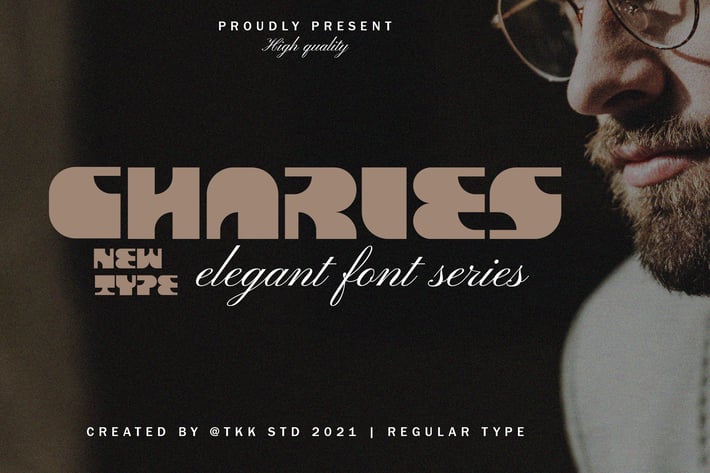
Retro Font - Charles
CHARLES - A Bold, Editorial-Inspired Typeface with Sculpted Proportions
CHARLES is a chunky, urban-inspired display font with bold edges, heavy contrast, and a powerful stance. Designed for modern fashion brands, music covers, and street posters, its structure leans on high-impact geometry and low counters to make each letter pop with attitude. Think of it as the typographic equivalent of a designer sneaker drop—clean lines, confident posture, and pure street presence.
Its sculpted body and all-caps style are made to command attention—whether you're creating merchandise mockups, billboard headlines, or indie magazine spreads.
Key Features :
Urban block style with sharp aesthetic
Designed for bold visual presence
Excellent legibility in large-scale use
Fits apparel, music, fashion & promo kits
Ideal for trend-led, expressive branding